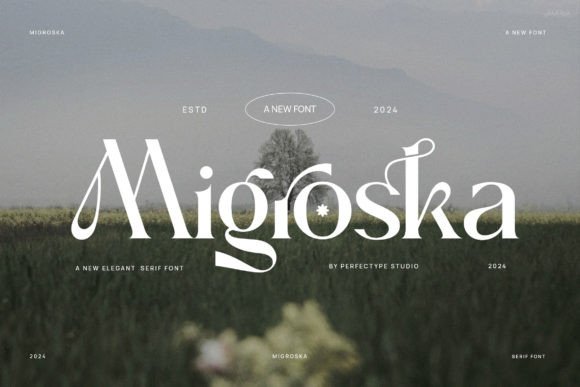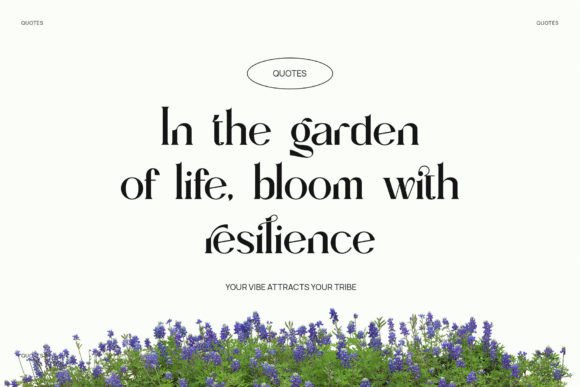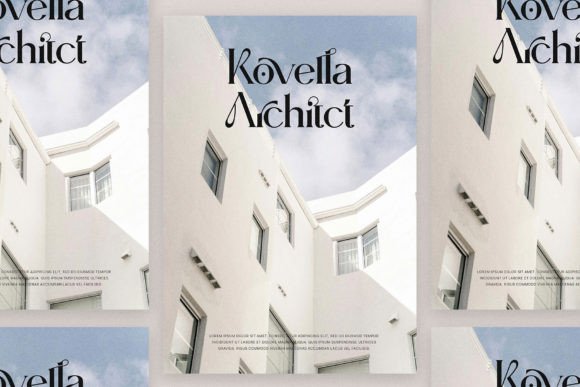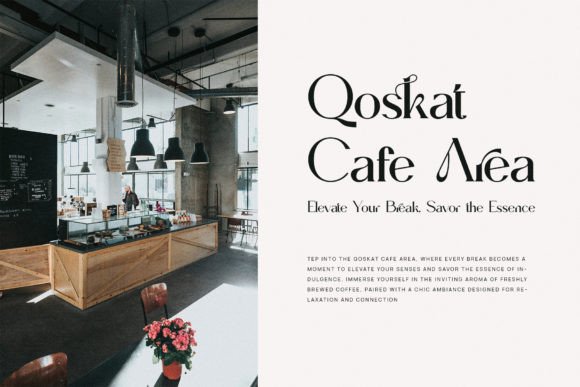
Migroska Font: Elegant Serif with Ligatures for Inspiring Logo Design
About the Migroska Font
From logos to headlines, the Migroska Font is the perfect choice for making a lasting impression. Migroska is a classy serif typeface with elegant ligatures. Its stylish design adds sophistication to any project. Perfect for headings, logos, and more, Migroska brings a touch of class to your typography.
Migroska’s elegant serifs and ligatures make it ideal for headlines, logos, and short-form text in branding materials, invitations, or high-end packaging. Its sophistication lends itself well to projects requiring a touch of classic charm. However, its detailed forms are less suitable for body text or UI elements where readability at smaller sizes is crucial. Avoid using Migroska for lengthy paragraphs or applications demanding high legibility.
Pairing Migroska effectively requires considering its inherent elegance. A clean sans-serif like Montserrat or Lato provides a contemporary counterpoint, creating a balanced and sophisticated feel. For a more traditional approach, a neutral serif like Garamond or a geometric sans-serif like Futura offers a harmonious contrast. Avoid overly playful or informal pairings to maintain Migroska’s refined aesthetic.
The overall personality of Migroska is sophisticated and refined, conveying a sense of timeless elegance and understated luxury. It’s a versatile choice for brands aiming for a premium or heritage feel, yet its classic elegance transcends specific trends.
Migroska Font Usage Examples
Migroska Font Example